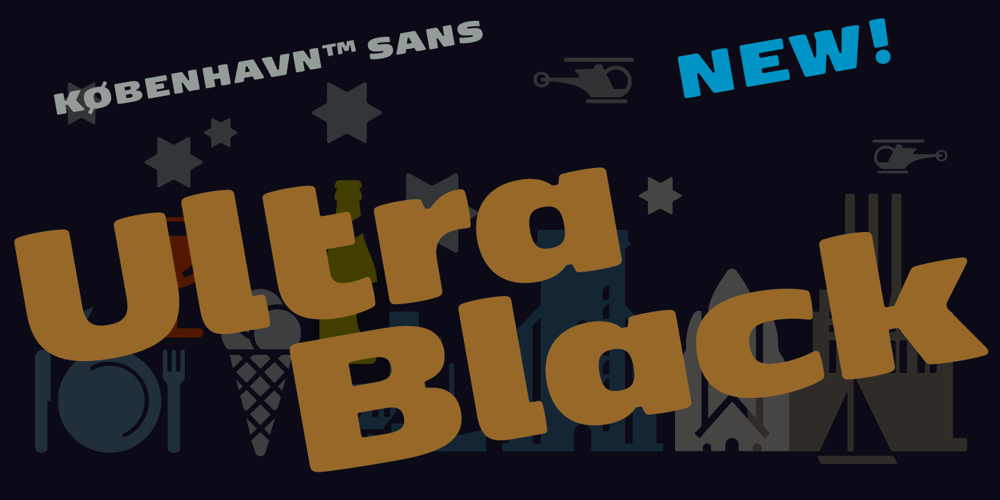
FP København Sans Font Family was designed by Morten Rostgaard Olsen and published by Fontpartners. FP København Sans contains 27 styles and family package options. Copenhagen has been in need of a typeface that unites the city’s many visual expressions. The three designers Morten Rostgaard Olsen, Henrik Birkvig and Ole Søndergaard have designed and developed the typeface FP København. Now available from MyFonts in 44 styles: Serif & sans serif, uprights & italics, small caps, pictos-characters, stencils, sprayed style, OT-features, ligatures, contextual alternates etc. The shapes of the letters are inspired by the city’s culture and the visual environment and design in Denmark in the 20th century. It is relatively low and wide as the city itself and with rounded corners that give it a warm visual mood.